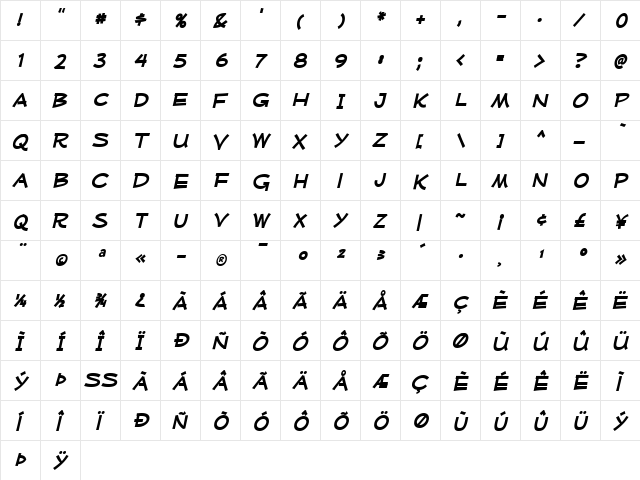
Mufferaw Xp Bold Italic
Design Context for Mufferaw Xp Typeface
Mufferaw Xp is a composed and adaptable typeface that performs quietly and consistently across a wide range of design contexts. Its italic angle brings a sense of urgency and motion to the letterforms. The heavy weight commands attention and anchors typographic hierarchies.